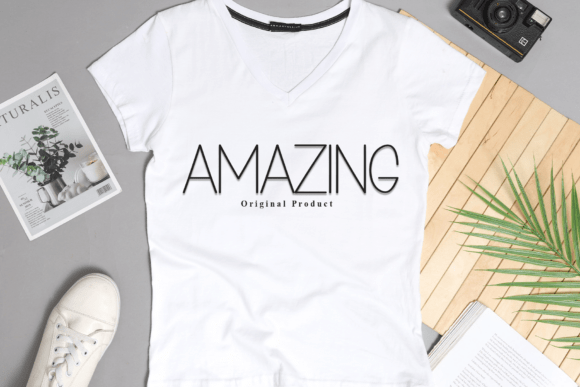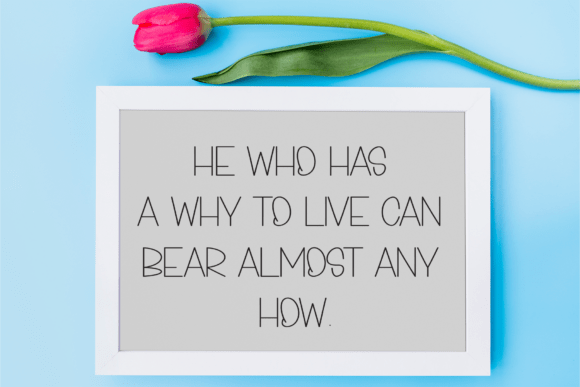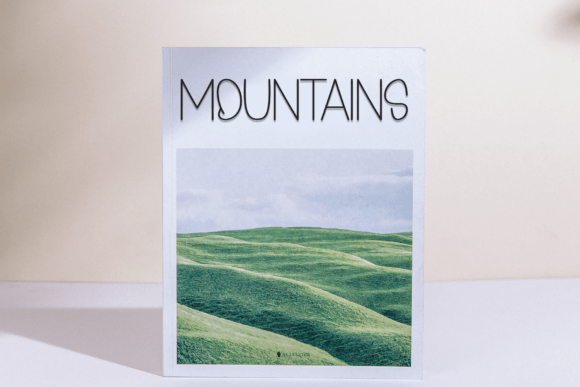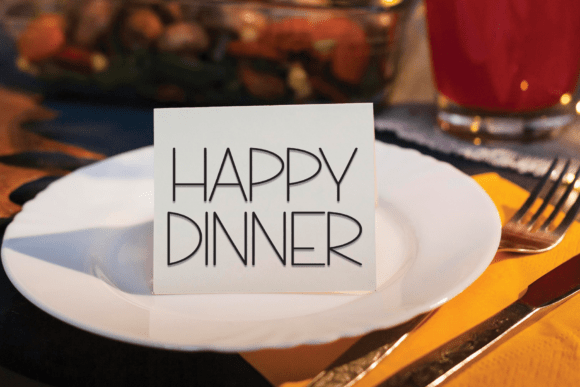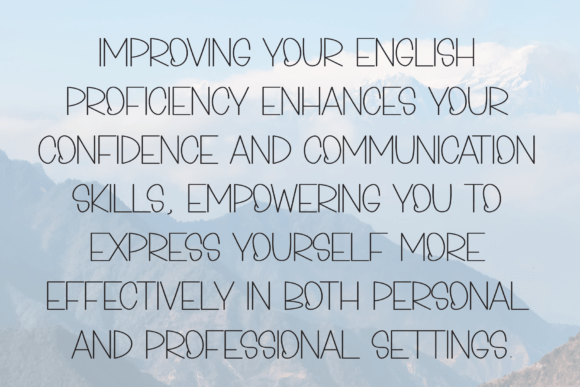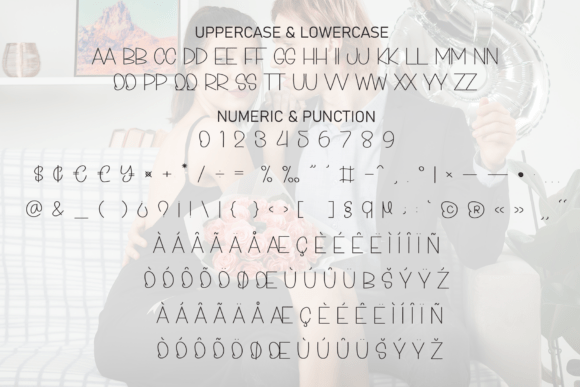
Date Birthday Font: Elevate Your Designs with a Touch of Elegance
Are you on the hunt for a font that exudes sophistication and style? Look no further than the Date Birthday Font. This clean and modern thin-line font is perfect for designers and crafters seeking to add a sleek and minimalistic touch to their projects. In this article, we’ll dive into the world of Date Birthday Font, exploring its features, uses, and benefits.
What is Date Birthday Font?
Date Birthday Font is a contemporary font designed with elegance and simplicity in mind. Its thin-line style gives it a sleek and modern appearance, making it ideal for a wide range of applications. Whether you’re creating event invitations, social media graphics, fashion branding, or date-themed projects, this font is sure to impress.
Key Features of Date Birthday Font
- Clean and Modern Design: Date Birthday Font boasts a clean and modern design that is both visually appealing and highly legible.
- Thin-Line Style: The font’s thin-line style gives it a sleek and sophisticated look that’s perfect for elegant designs.
- Minimalistic Aesthetic: With its minimalistic aesthetic, Date Birthday Font is ideal for designers who want to create simple yet effective designs.
- High Versatility: This font is highly versatile and can be used for a wide range of projects, from event invitations to fashion branding.
Uses of Date Birthday Font
Date Birthday Font is perfect for a variety of projects, including:
- Elegant Event Invitations: Create stunning event invitations that exude elegance and sophistication.
- Social Media Graphics: Use Date Birthday Font to create eye-catching social media graphics that are sure to grab attention.
- Fashion Branding: Elevate your fashion brand with a font that’s both stylish and contemporary.
- Date-Themed Projects: Create beautiful date-themed projects, such as wedding invitations, anniversary cards, and more.
Benefits of Using Date Birthday Font
By using Date Birthday Font, designers and crafters can enjoy a range of benefits, including:
- Unique and Stylish Designs: Create unique and stylish designs that stand out from the crowd.
- Easy to Read: The font’s clean and modern design makes it easy to read, even at small sizes.
- Time-Saving: With its highly legible design, Date Birthday Font can save you time and effort in creating effective designs.
Tips for Using Date Birthday Font
To get the most out of Date Birthday Font, follow these tips:
- Pair with Bold Fonts: Pair Date Birthday Font with bold fonts to create stunning contrast and visual interest.
- Experiment with Colors: Experiment with different colors to find the perfect combination that suits your design.
- Use for Headings and Titles: Use Date Birthday Font for headings and titles to add a touch of elegance and sophistication.
Date Birthday Font is a versatile and stylish font that’s perfect for designers and crafters seeking to add a touch of elegance and sophistication to their projects. With its clean and modern design, thin-line style, and minimalistic aesthetic, this font is ideal for a wide range of applications. Whether you’re creating event invitations, social media graphics, fashion branding, or date-themed projects, Date Birthday Font is sure to impress.